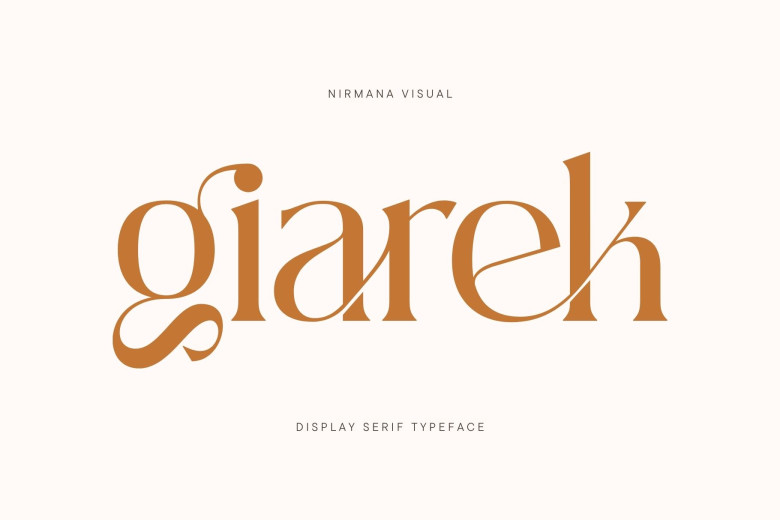
Giarek Font
Giarek Display Serif font brings beautiful typographic harmony to many design projects such as logos, branding materials, social media posts and product designs.
Giarek Serif Font